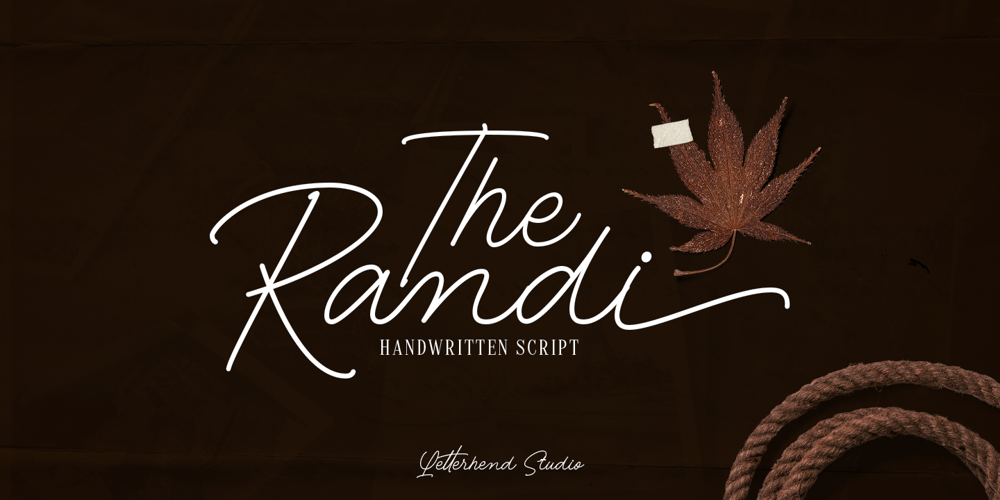
The Randi Font Family was designed by Hendry Juanda and published by Letterhend. The Randi contains 1 styles and family package options. Introducing, The Randi – A monoline handwritten script with classy look. This type of font perfectly made to be applied especially in logo, and the other various formal forms such as invitations, labels, logos, magazines, books, greeting / wedding cards, packaging, fashion, make up, stationery, novels, labels or any type of advertising purpose.Features : uppercase & lowercase numbers and punctuation multilingual swash and ligature alternates PUA encoded We highly recommend using a program that supports OpenType features and Glyphs panels like many of Adobe apps and Corel Draw, so you can see and access all Glyph variations. How to access opentype feature : letterhend.com/tutorials/using-opentype-feature-in-any-software/Email us to letterhend@gmail.com if you need something! Happy Designing!